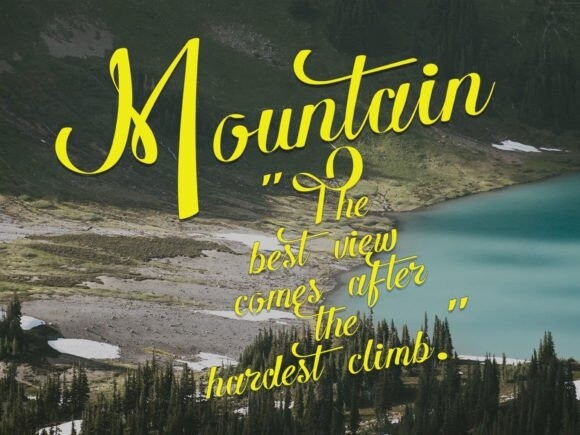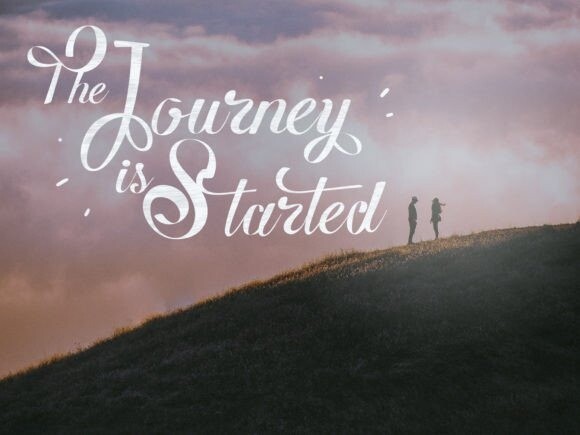
Woster Adios Font
Woster Adios is an elegant, modern, and beautiful script font. Its unique and lovely feel makes it perfect for anyone who needs a typeface for logo designs, magazines, social media, brochures, and many more.